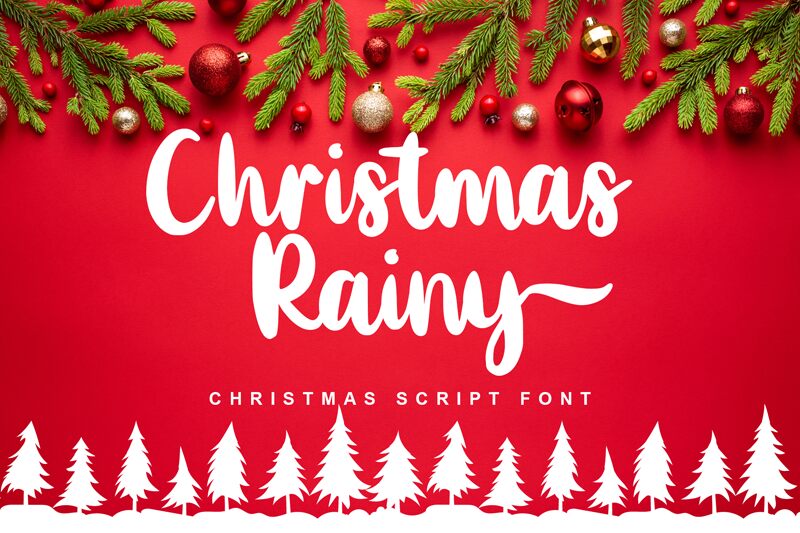
Christmas Rainy
Christmas Rainy font by Sarif Letter is an elegant brush typeface with a handwritten feel and casual charm. Its friendly appearance and modern script style make it perfect for capturing the essence of festive themes and celebrations.